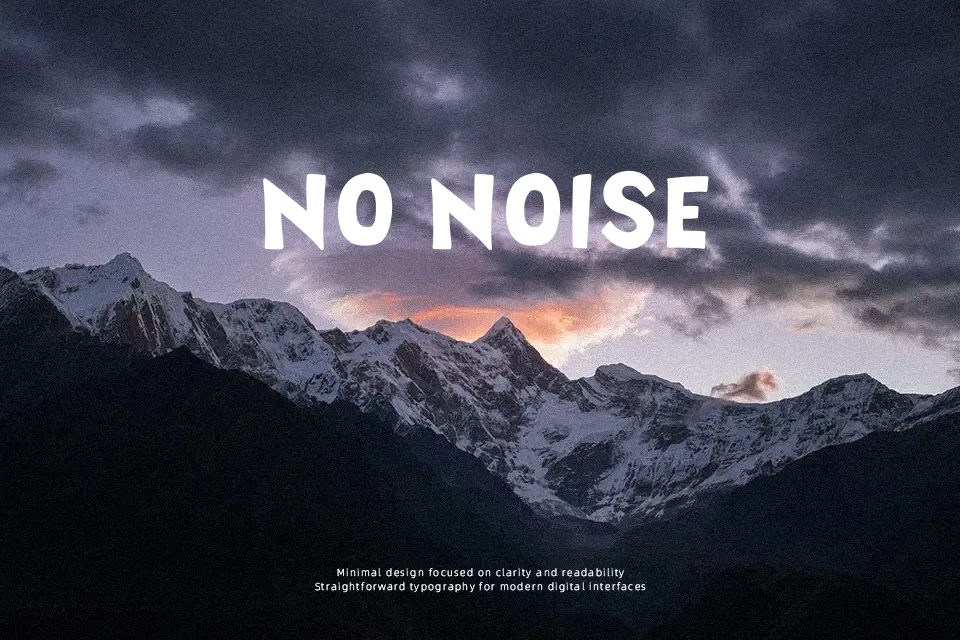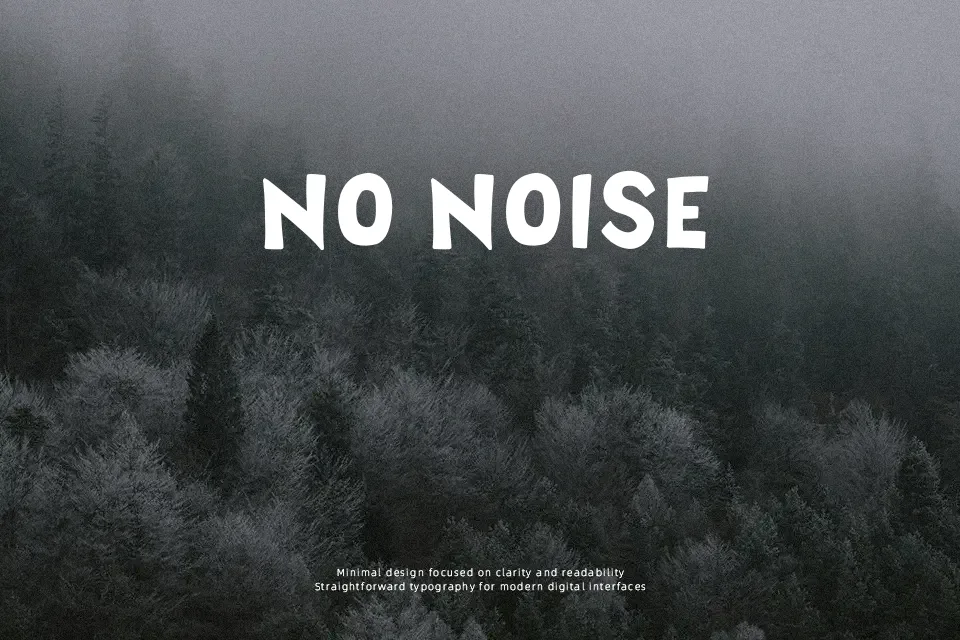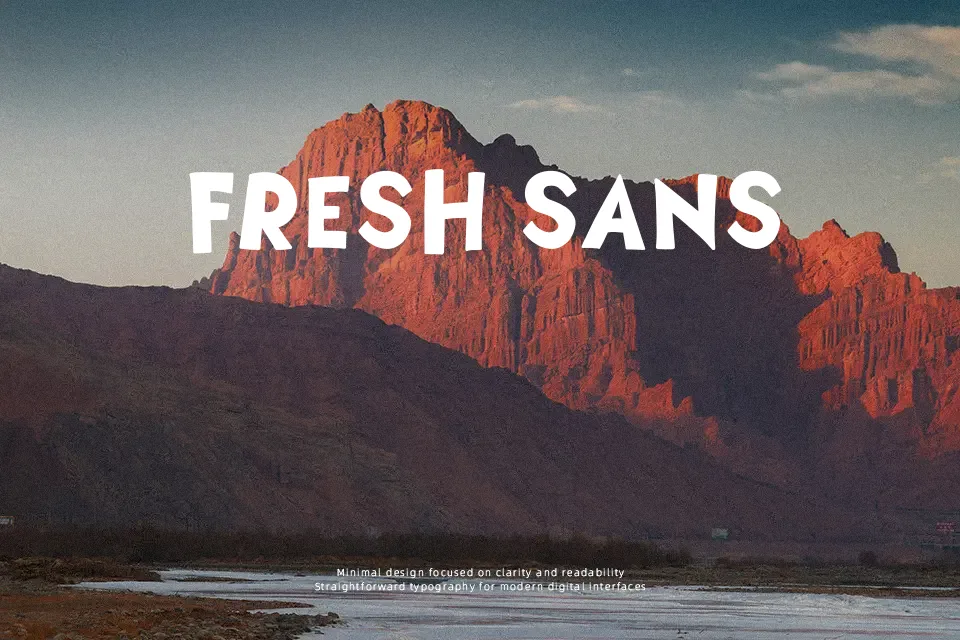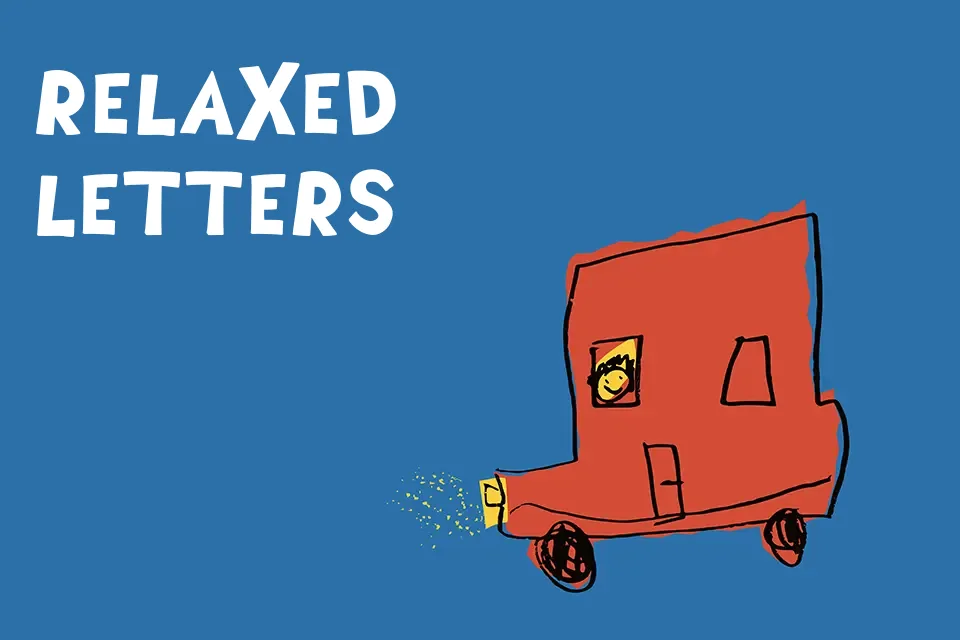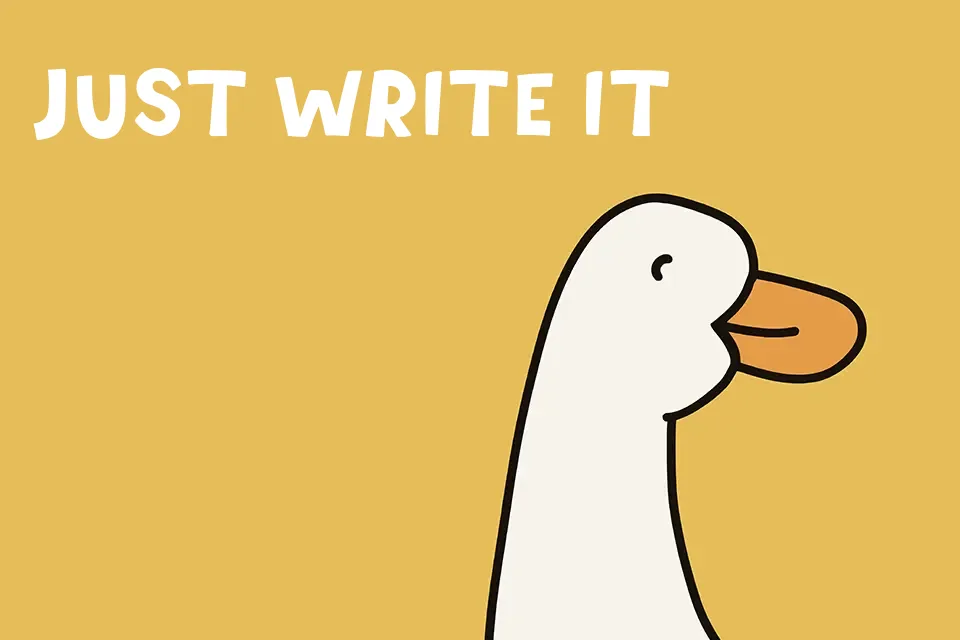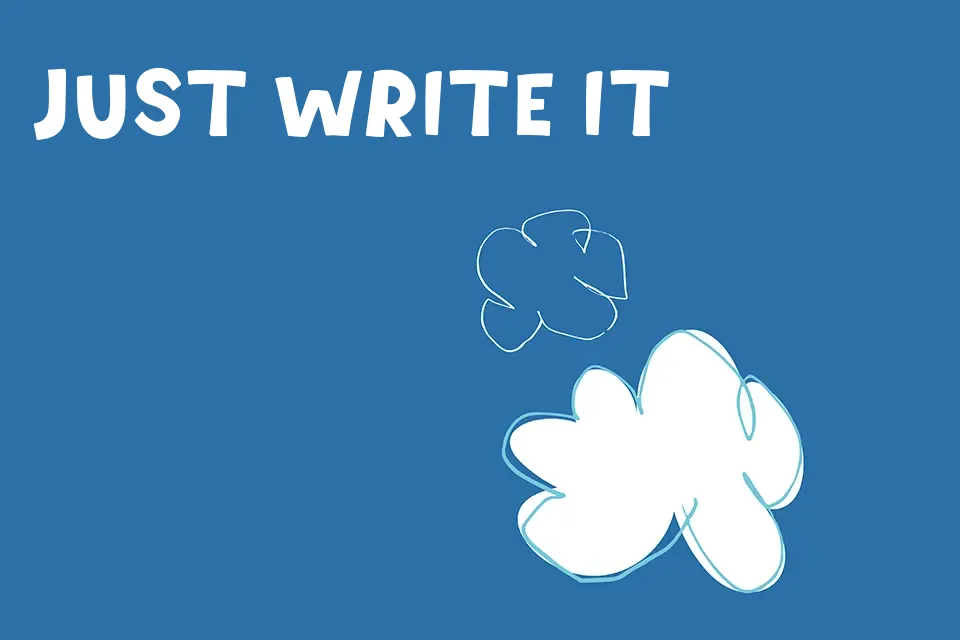
Birdgo Font
Birdgo is a cheerful, robust display typeface defined by its heavy hand-drawn strokes and bouncy, informal structure. The letterforms carry a whimsical weight, making the text feel approachable and full of vibrant energy. This style naturally lends itself to lively design scenarios like children’s book covers, bold packaging, and eye-catching event posters. Its thick weight ensures strong visibility across large visual formats. While Birdgo brings a wonderful sense of organic warmth to a canvas, its highly informal nature and wide proportions mean it struggles in corporate branding or lengthy paragraphs, where strict clarity and professional restraint are required. Compared to standard geometric designs, it trades rigid precision for sheer creativity.
Children’s book covers and illustrations
Eye-catching event posters
Creative product packaging
Informal brand identities
Formal corporate documentation
Lengthy paragraphs or dense reading
Minimalist luxury branding
Perfect for headline, kids, and packaging, with a bold and decorative style.